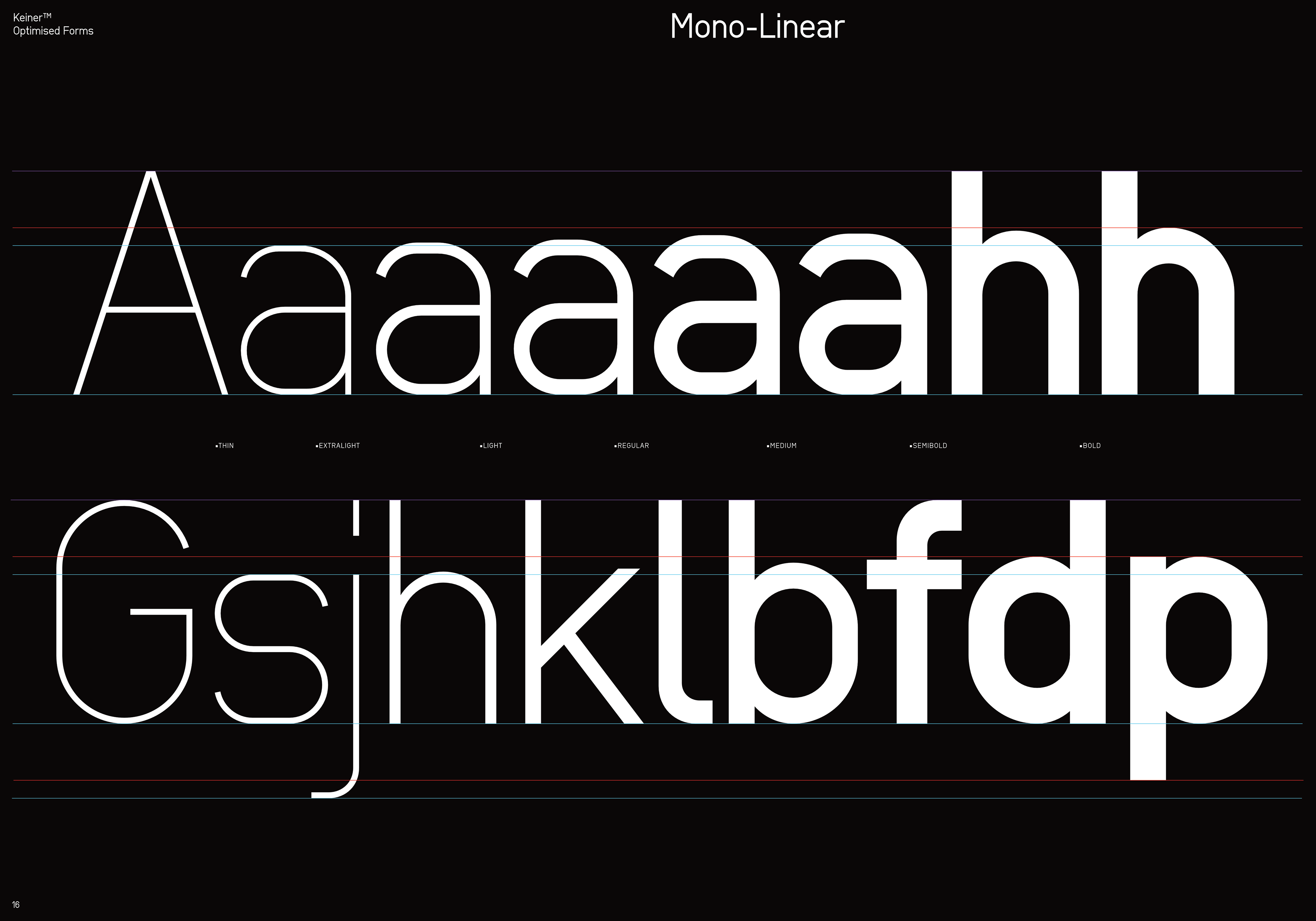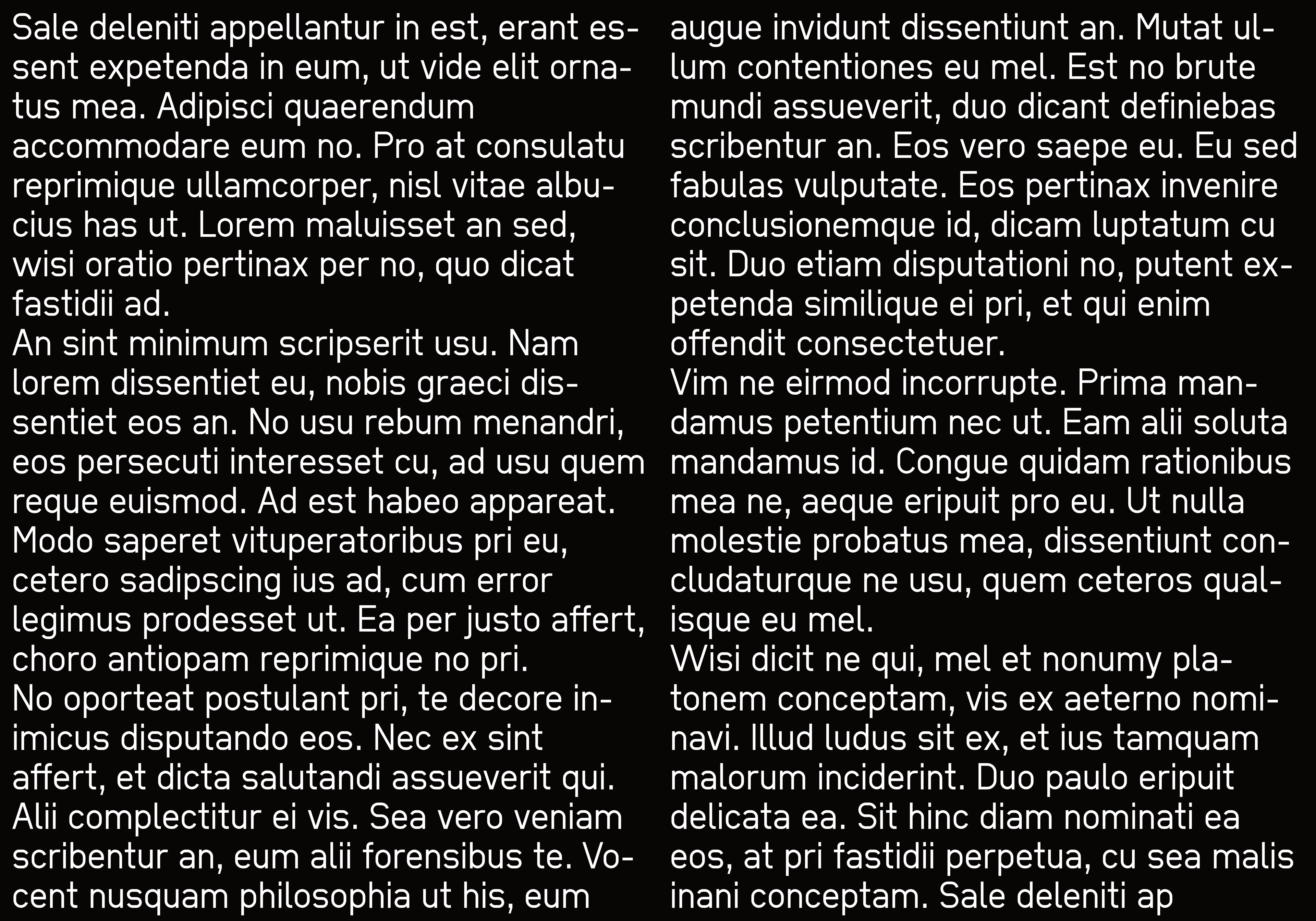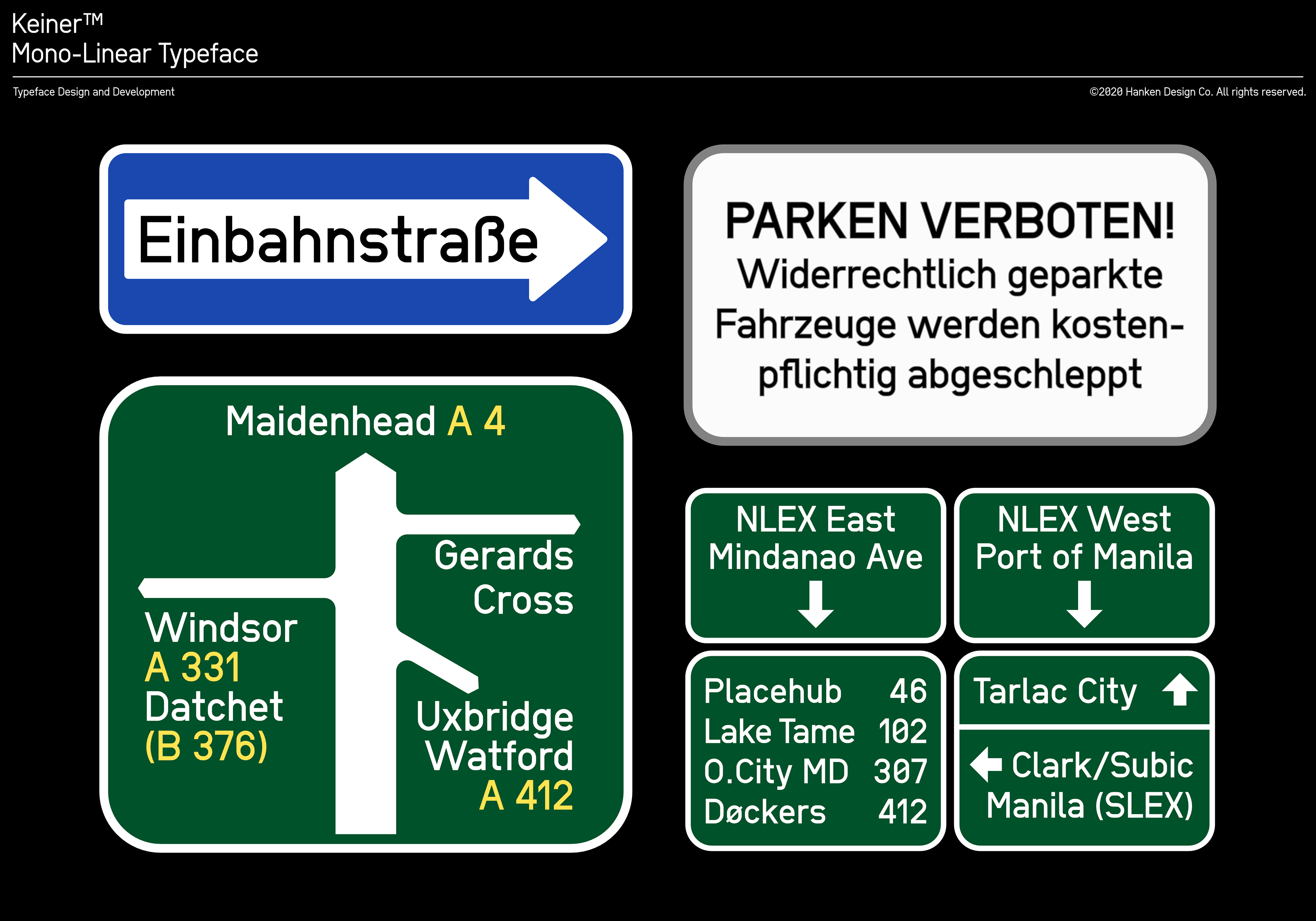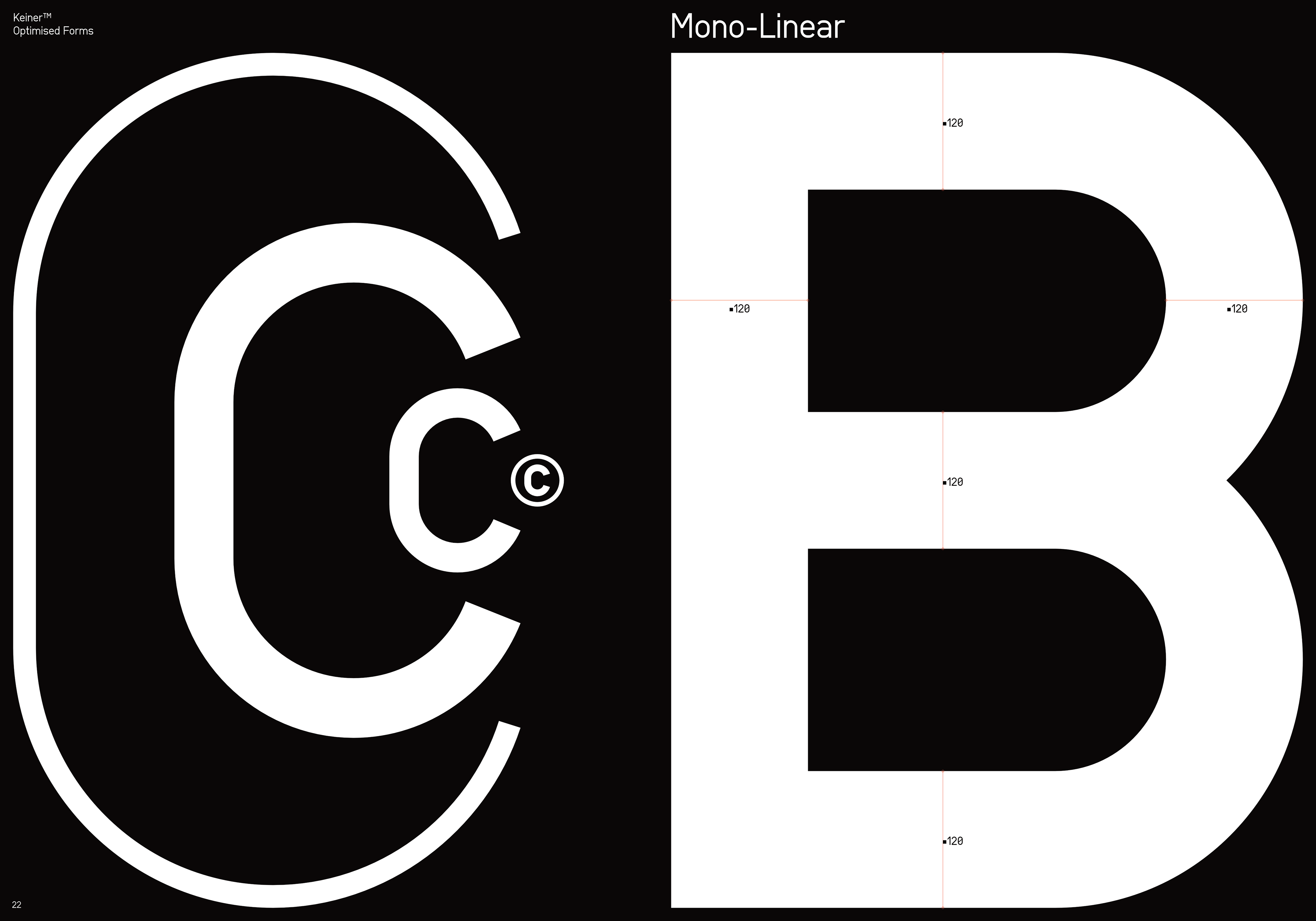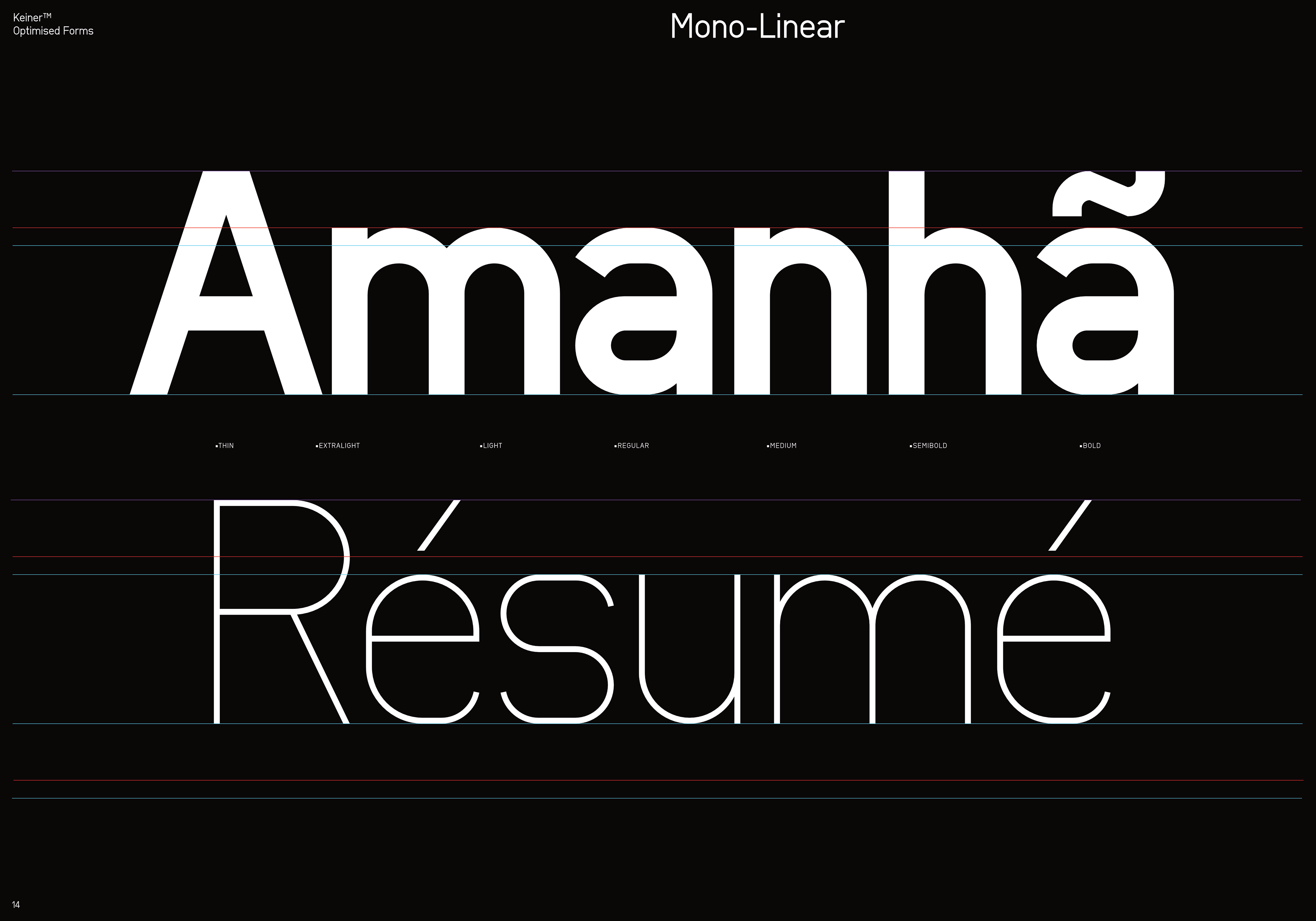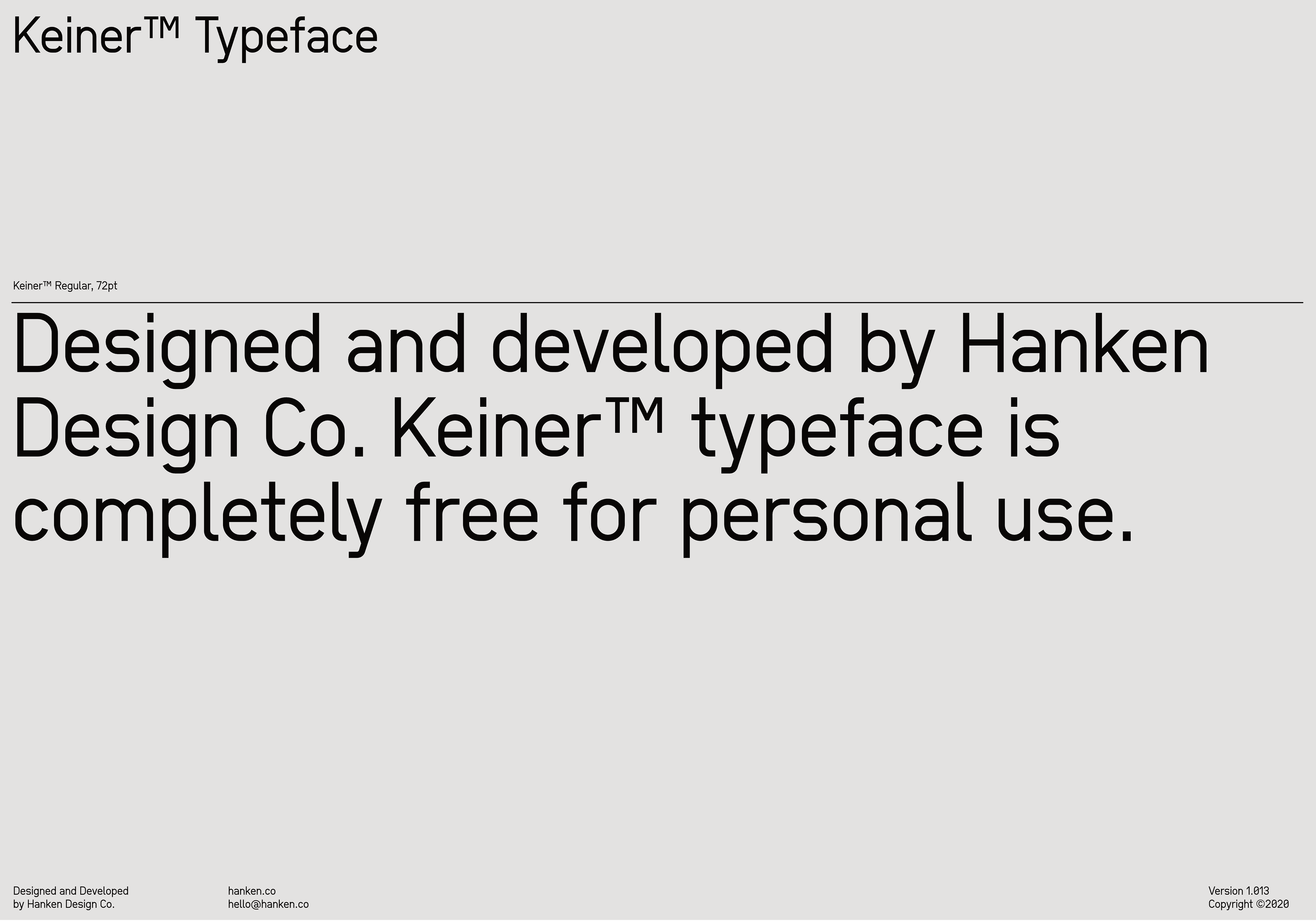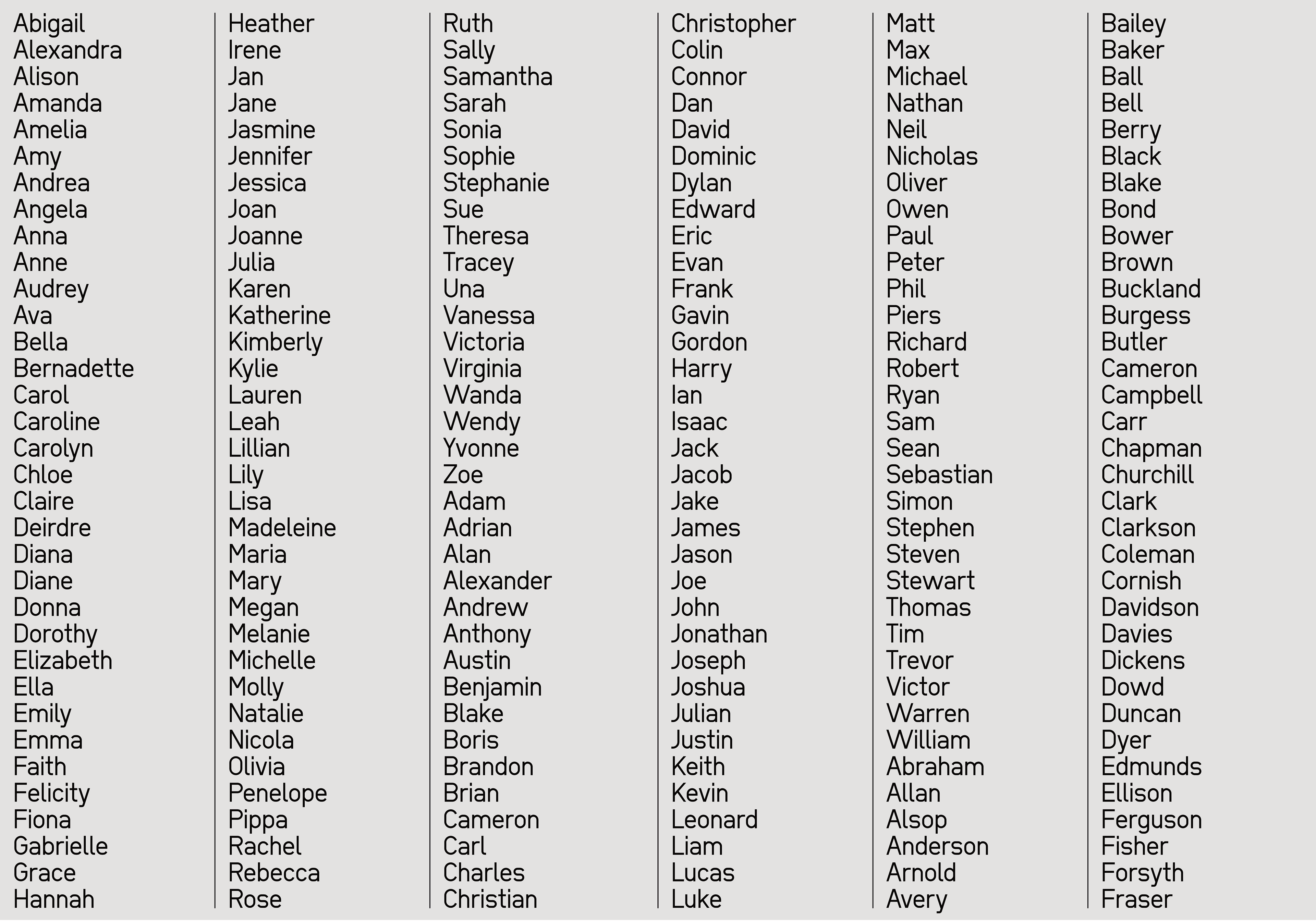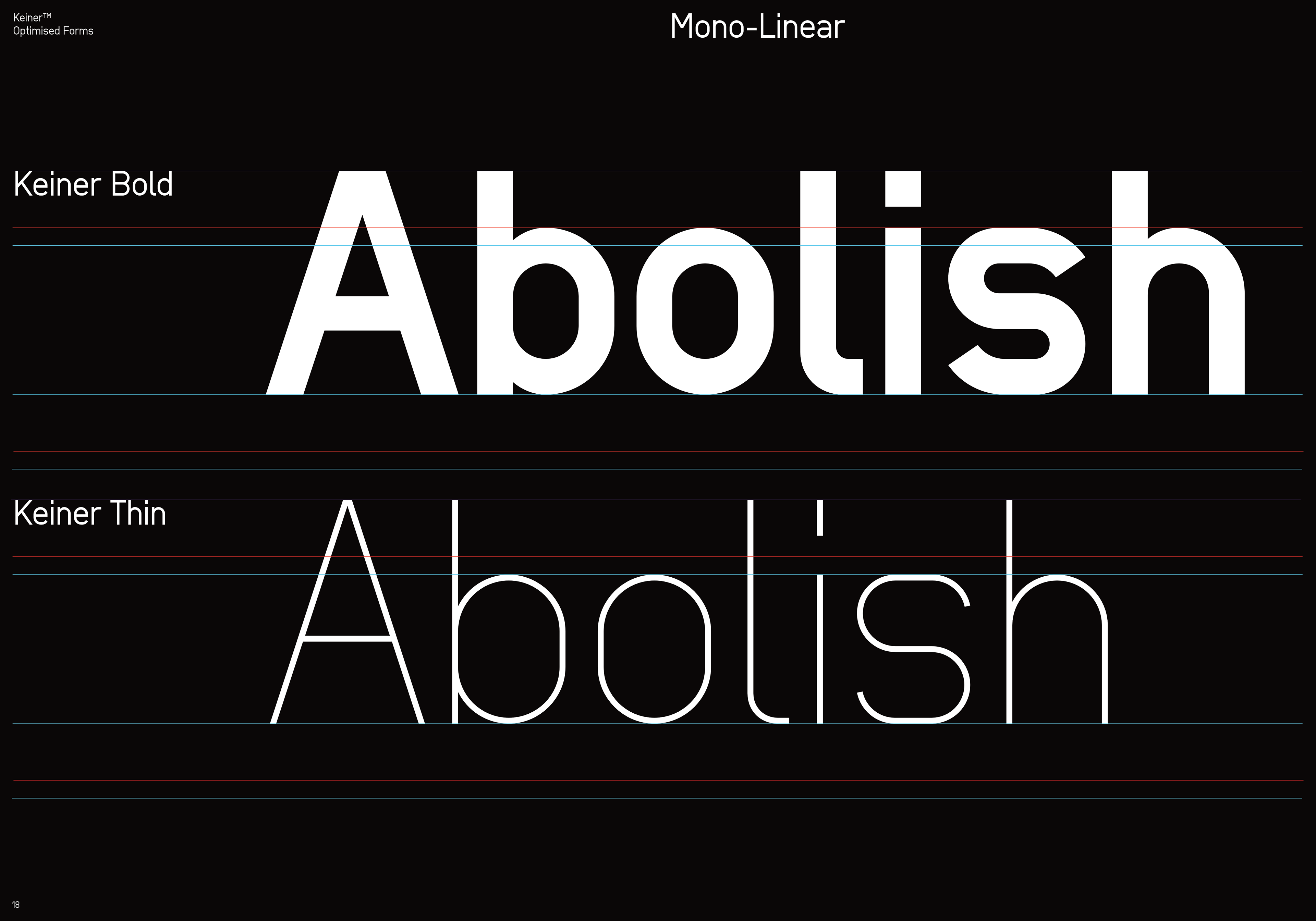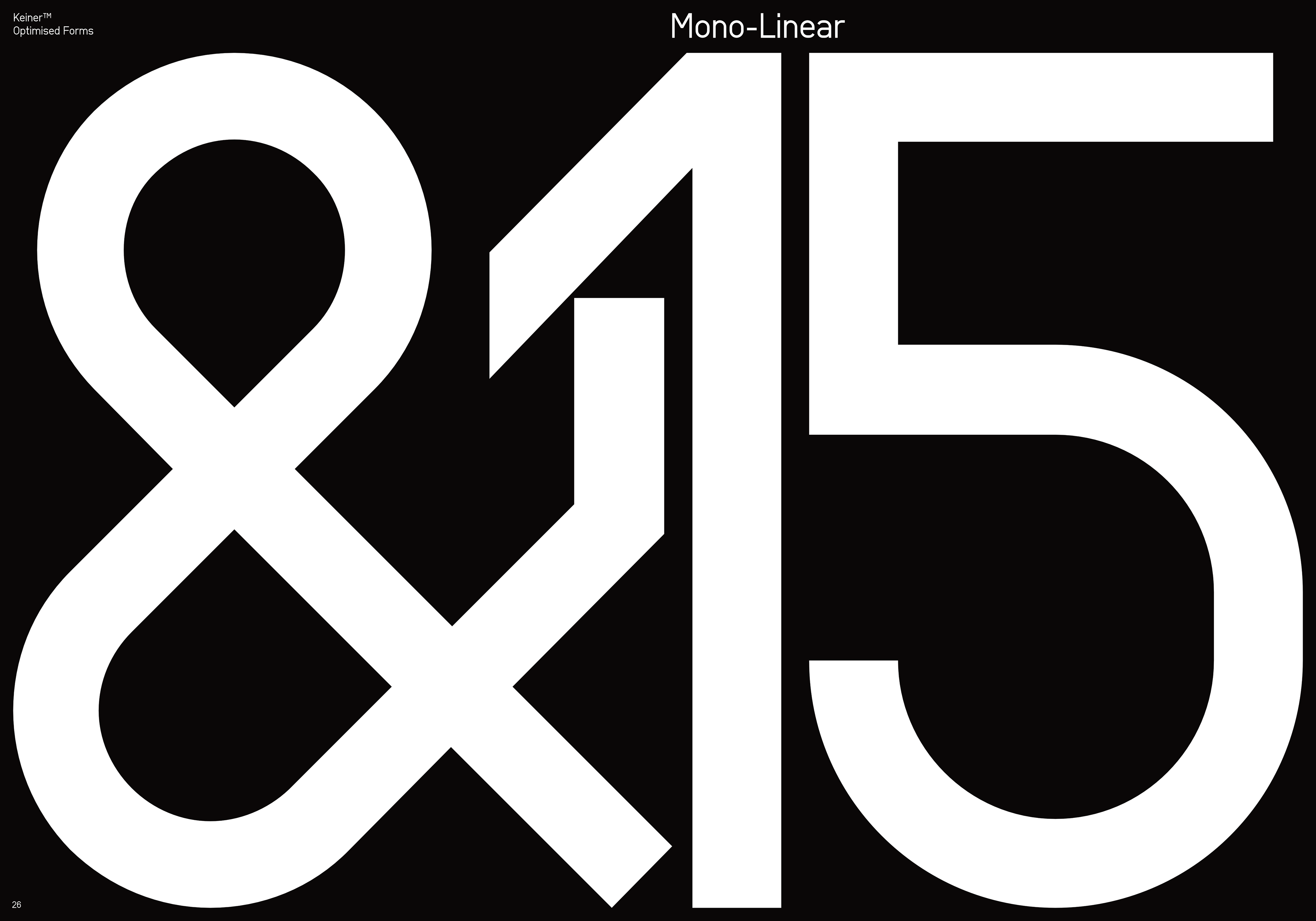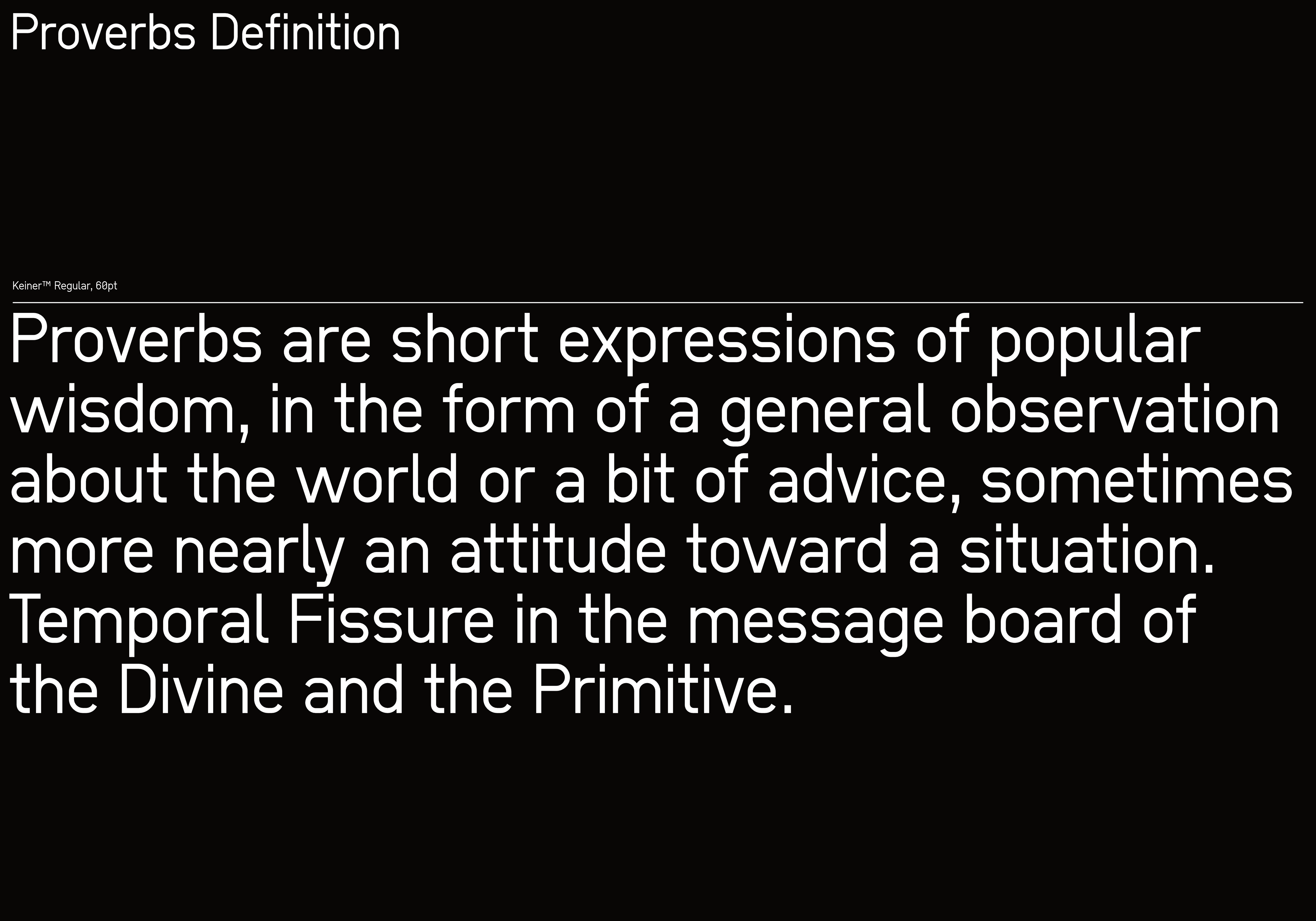
Keiner™ is a rigid mono-linear typeface. It has hardly any optical corrections and stem contrast. However, it is versatile enough to be used for environmental signage, logos, to some extent (or digital) body text and as headlines. The Keiner™ full version complete set is free for personal use.
Design+Development: Alfredo Marco Pradil
Company: Hanken Design Co.
Class: Sans Serif, Geometric